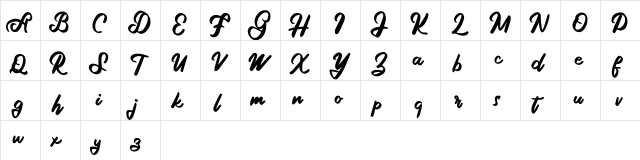
Gargilla FREE Regular
Design Context for Gargilla FREE Typeface
Gargilla FREE is a composed and adaptable typeface that performs quietly and consistently across a wide range of design contexts.
Pro Tip: Use Gargilla FREE in both headline and body roles to test its range before committing to a single application.